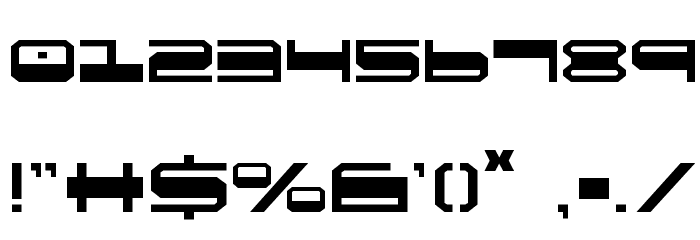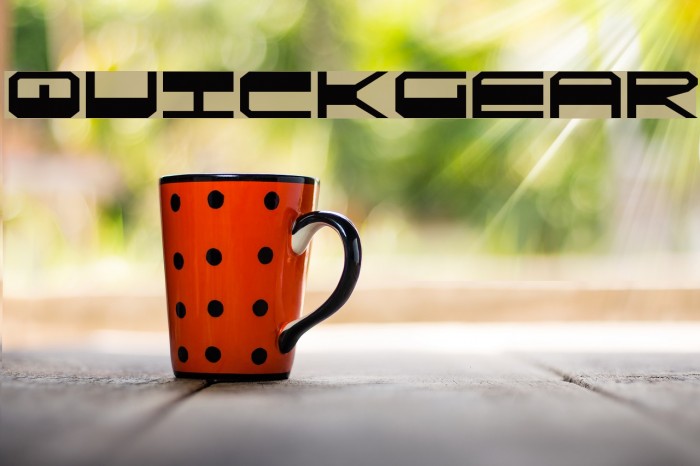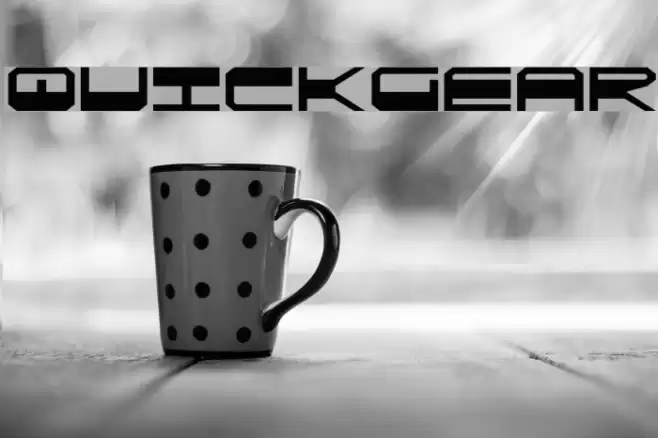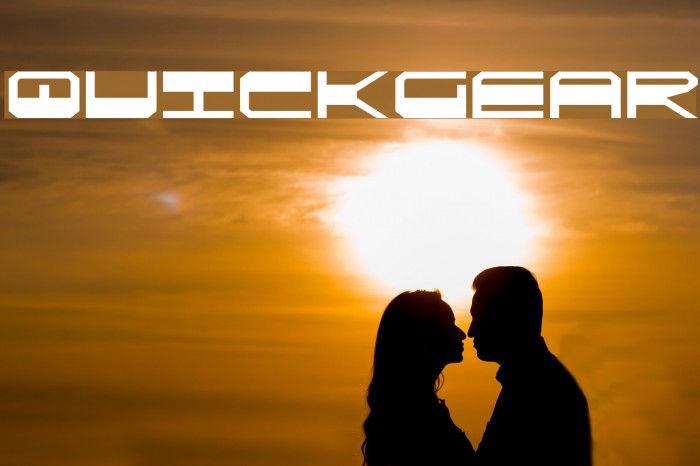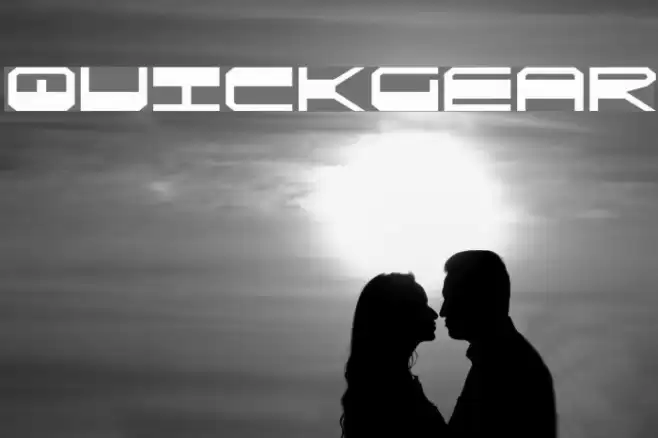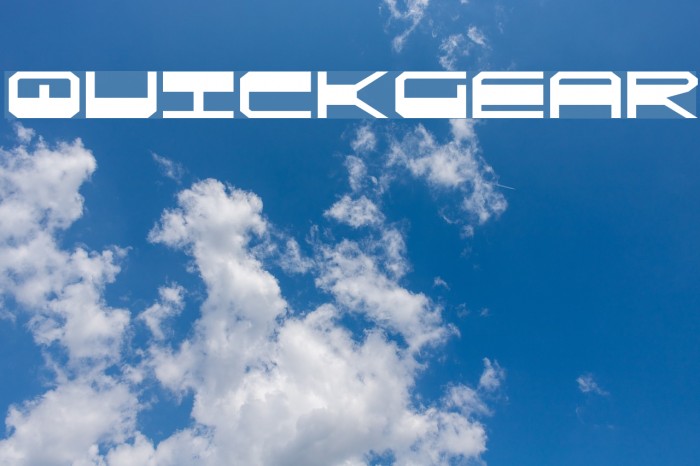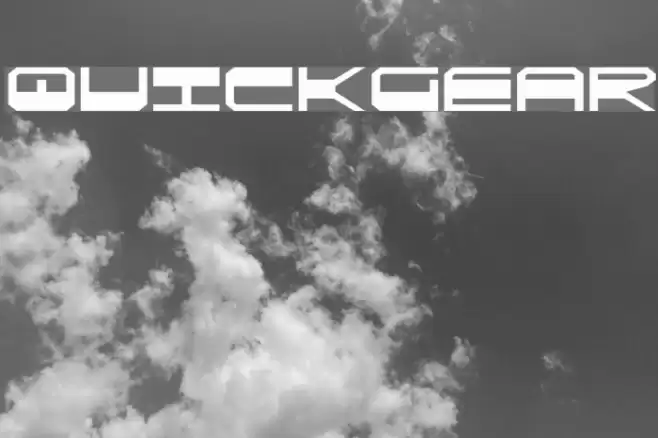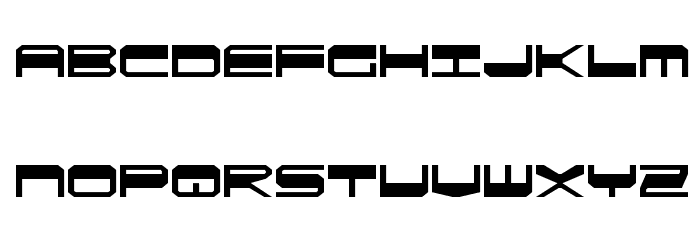
QuickGear Font
QuickGear Description
This font features a futuristic and angular design, characterized by its bold and geometric letterforms. The uppercase and lowercase letters share a consistent style, with sharp edges and a mechanical feel. The numbers and special characters maintain this aesthetic, making the font suitable for technology-themed projects. The overall appearance is modern and dynamic, with a strong emphasis on straight lines and right angles. The font's unique style makes it stand out, offering a distinct visual impact that is both eye-catching and memorable.
| Overall Style | Futuristic |
| Proposed Projects | Ideal for technology branding, video game titles, sci-fi posters, and digital interfaces. |